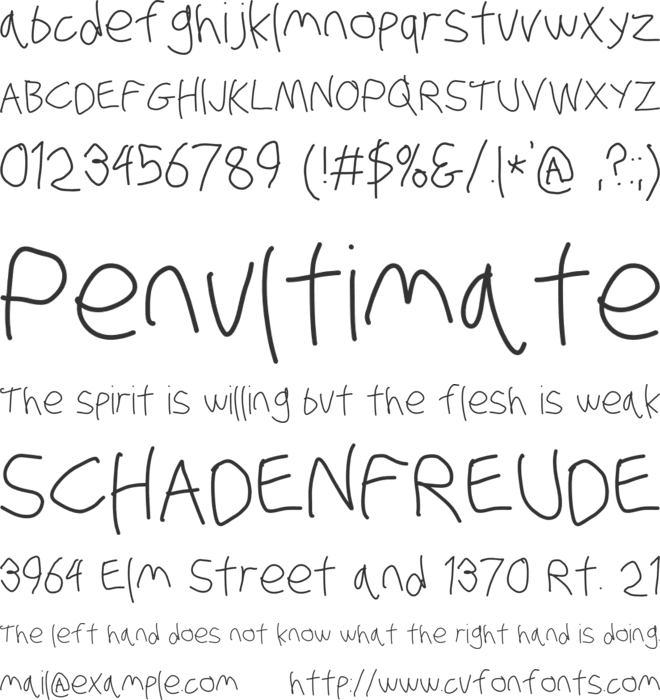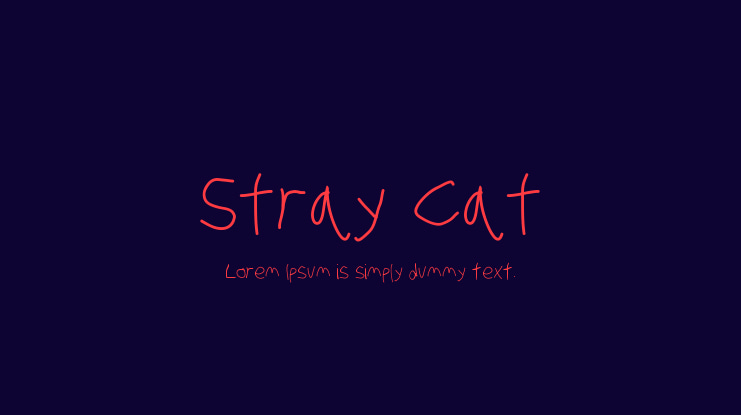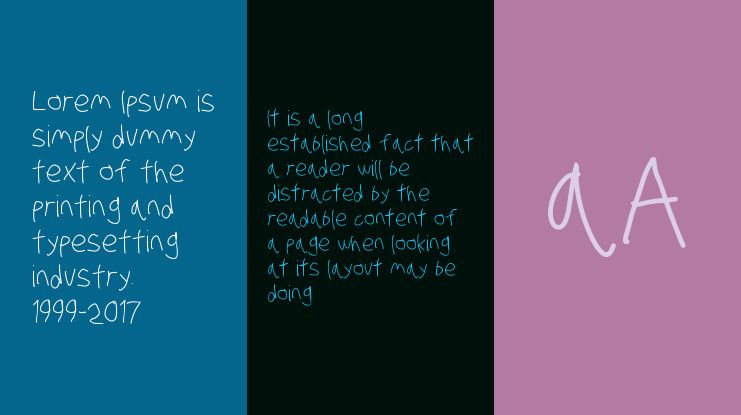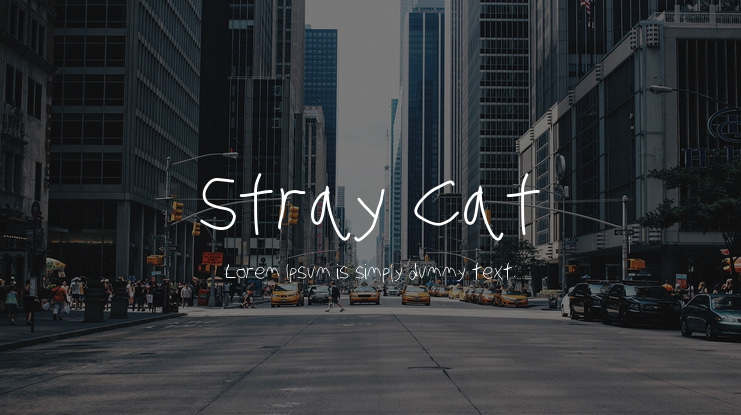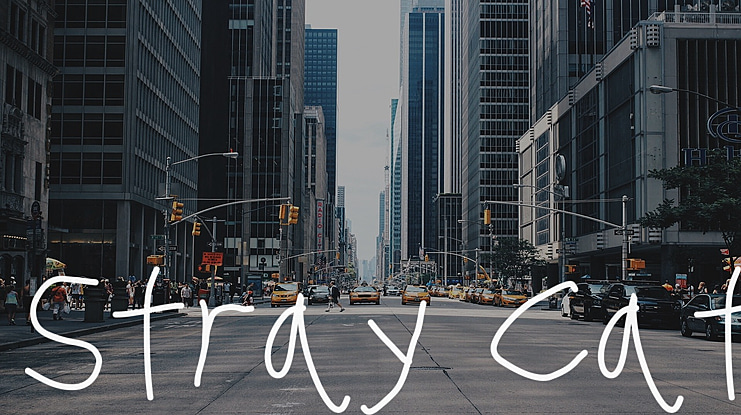
Stray Cat Font Family
Stray Cat is a new/old project handwriting font by Mew Too @ Cannot Into Space Fonts, which was started on in 2014 and is now complete.